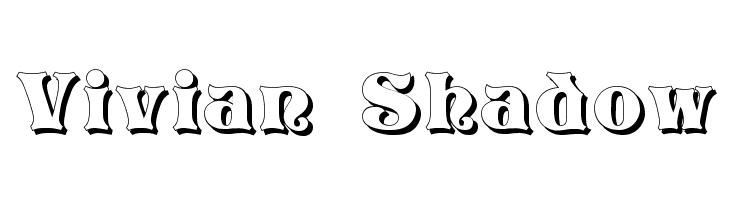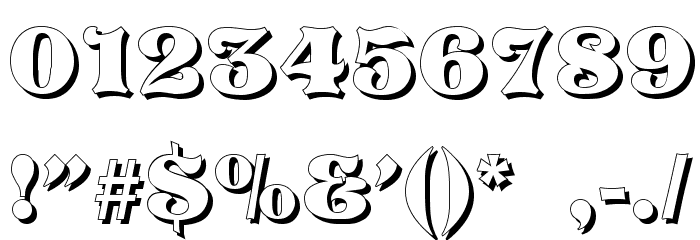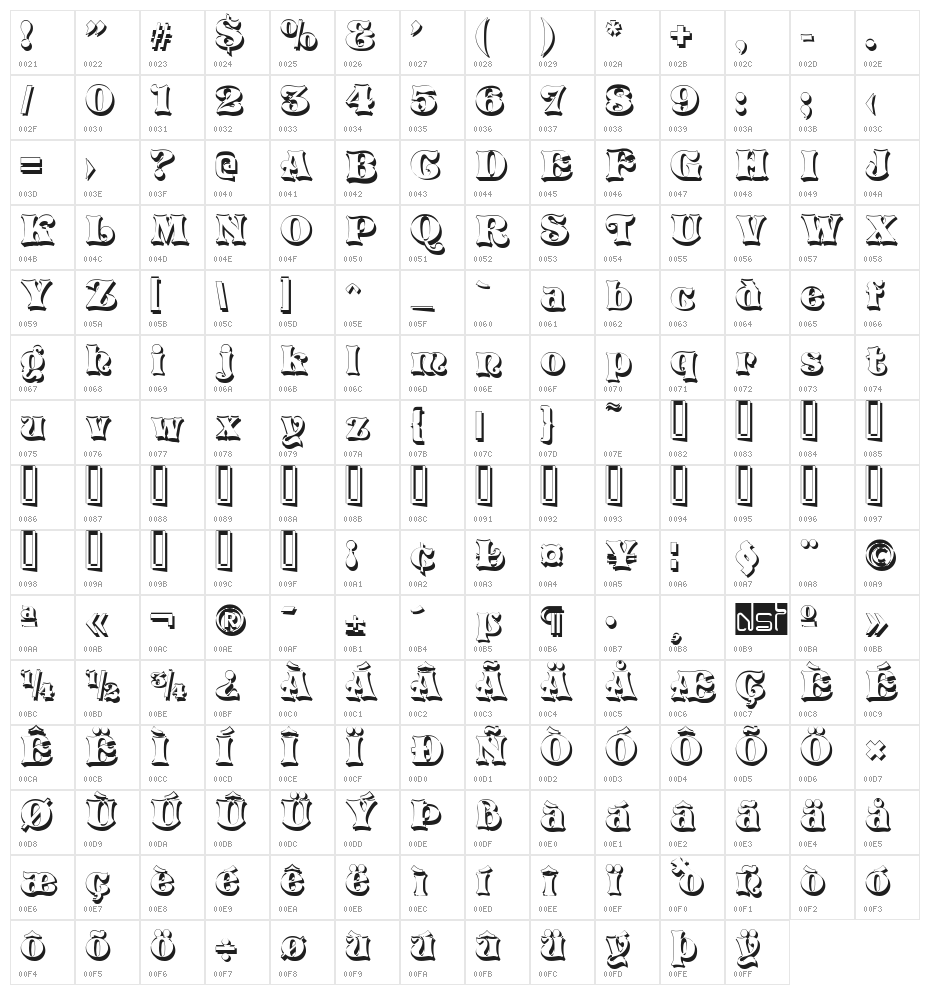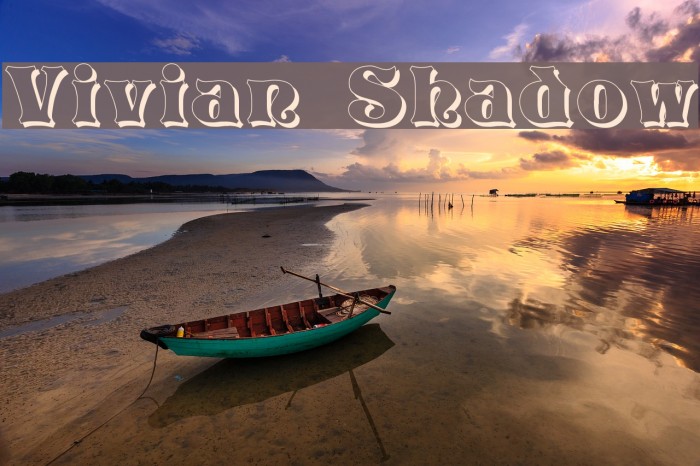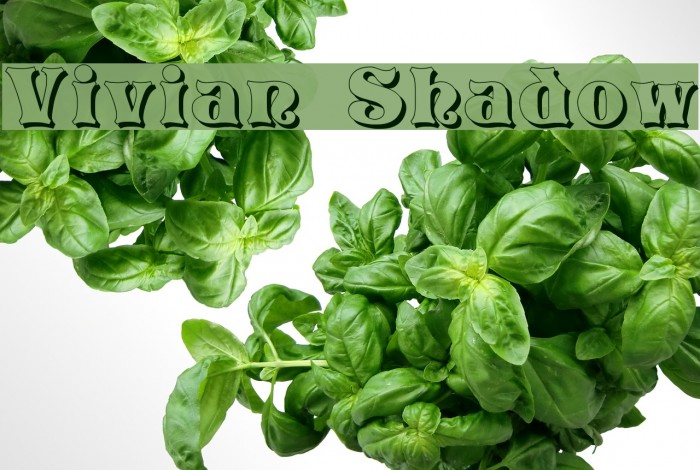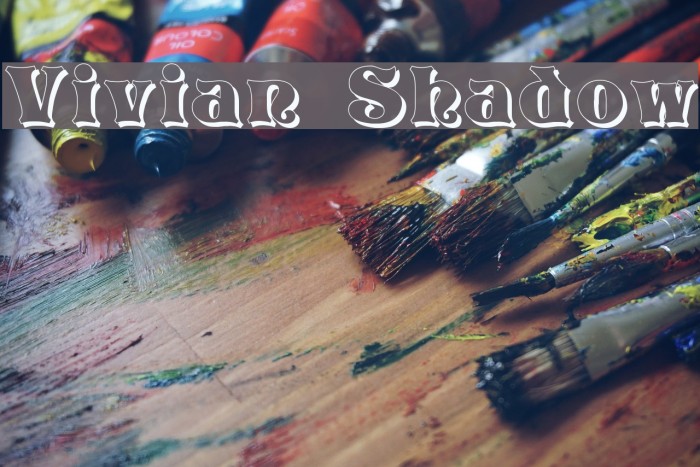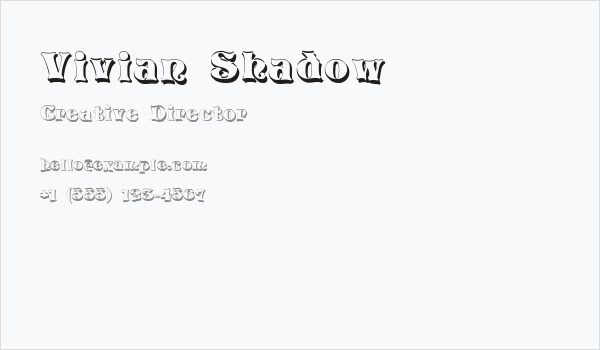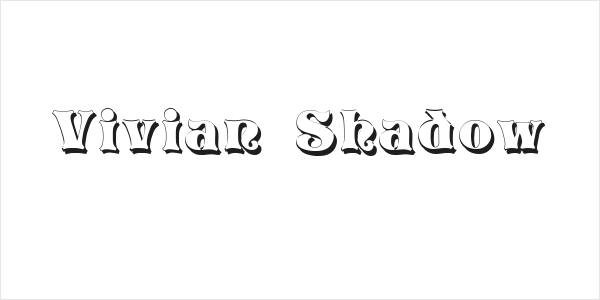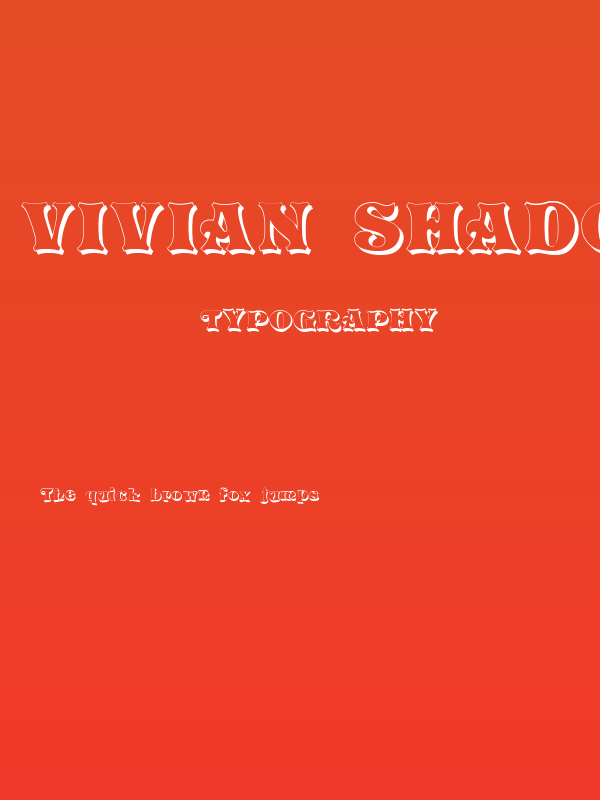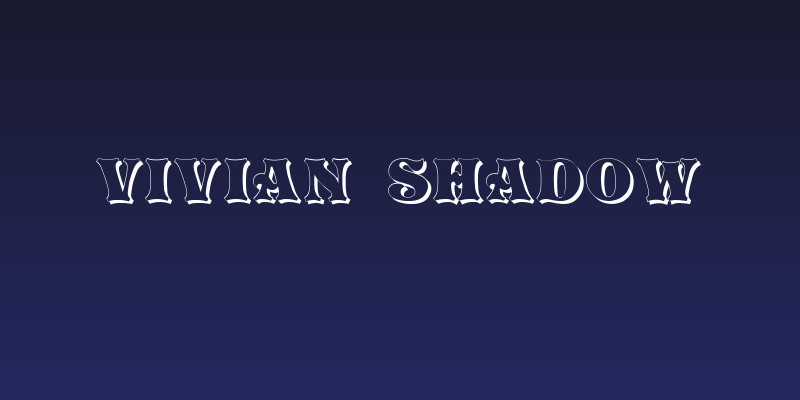
Vivian Shadow Font
Vivian Shadow Description
This font features a bold and dramatic style with a distinct shadow effect that gives it a three-dimensional appearance. The characters are ornate and decorative, with sharp edges and intricate details that add to its visual impact. The uppercase and lowercase letters maintain a consistent design, while the numerals and special characters complement the overall aesthetic. This font is ideal for projects that require a strong and eye-catching display, such as posters, headlines, and branding materials. Its unique style makes it stand out, providing a sense of depth and sophistication.
| Proposed Projects | Ideal for posters, headlines, branding, and any project needing a striking display font. |